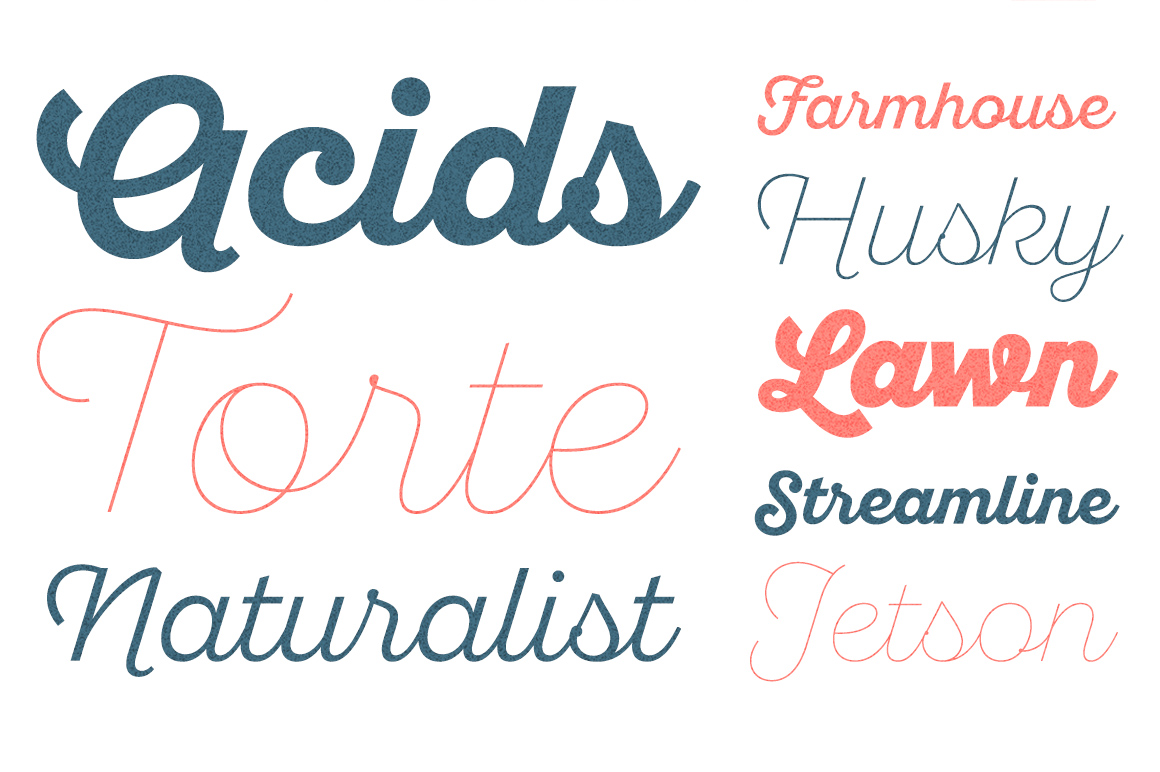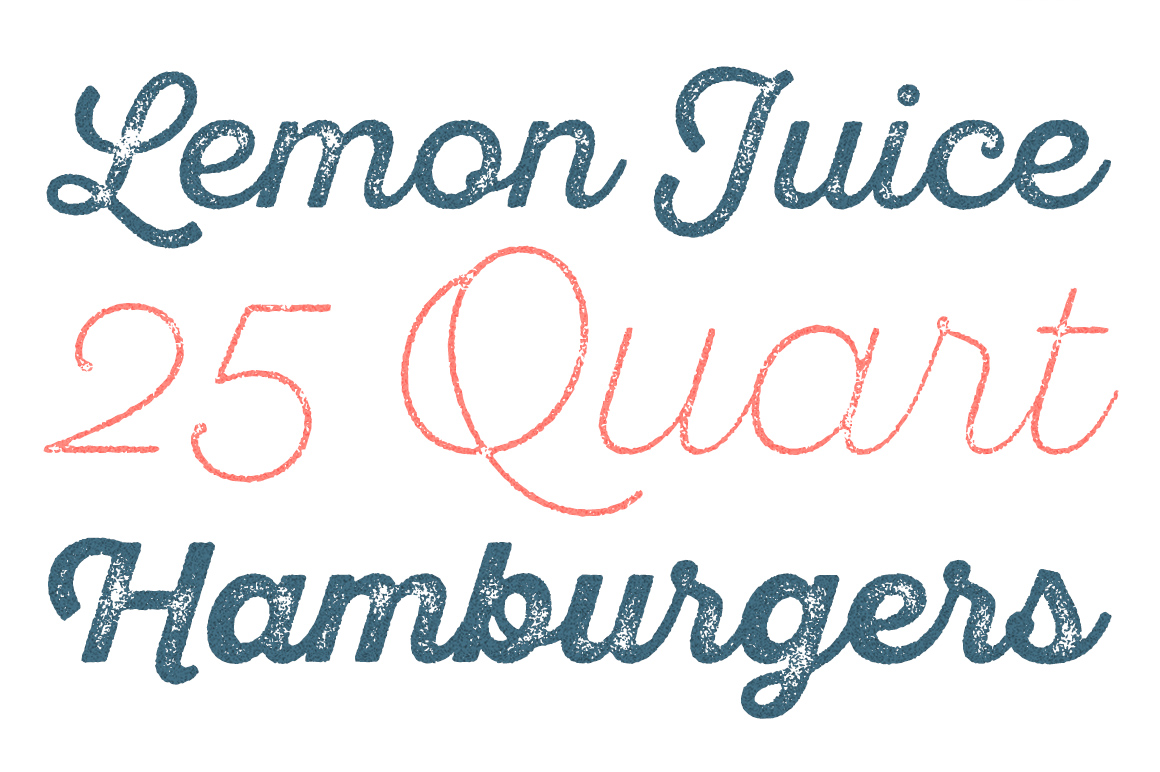
Sant’Elia Script – Free Demo
Sant’Elia Script from Yellow Design Studio is a robust modern type family with regular and rough versions in six weights. Its forms are crisp and welcoming with a splash of verve. Alternate versions feature angled strokes that inject drama and energy.